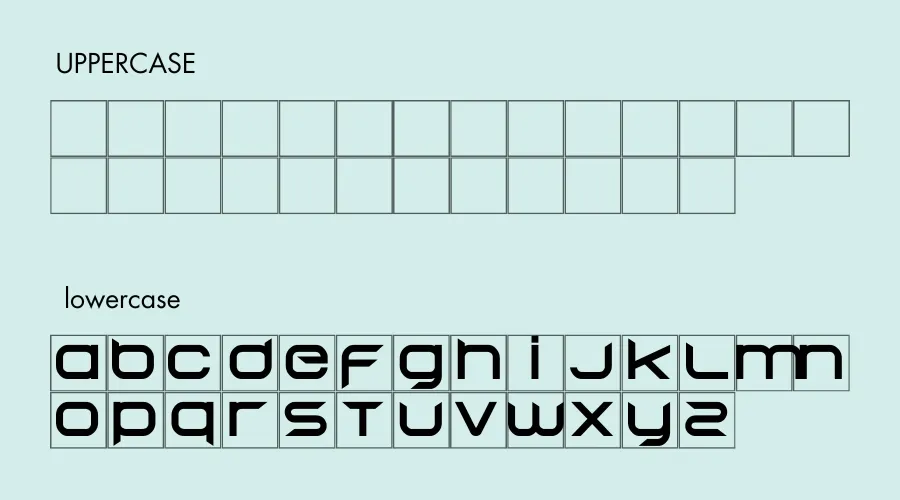
About Alien Font
Alien Font is designed by Swiss artist H.R it is a display text style. This font design has a sophisticated appearance and it is simple, smooth, and readable style. This tool may be used to create any type of project that needs a unique design.
It contains all the features that are required to create amazing designs. The font style is amazing and it is really appealing and catchy design.
Nice texture typeface is commonly used in a variety of advertising campaigns. The font's unusual material pattern can make any content attractive. It is applicable to all websites.